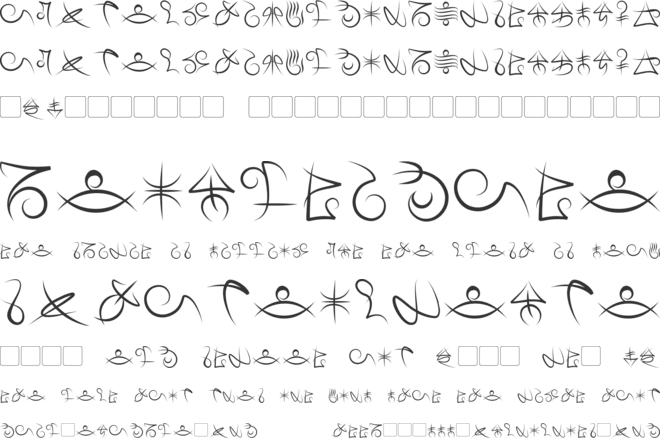
Mage Script Font Family
Neale Davidson
Mage Script is a thin, almost-spidery fantasy face based heavily off of the ‘mage’s language’ from Bethesda Softwork’s Elder Scrolls series of games. Includes all canon characters. Includes bold, italic, and bold-italic weights.